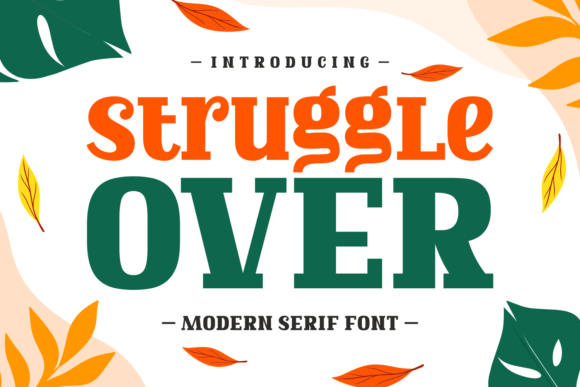
Journey through the realm of typography with the Struggle Over font, where heritage and modernity harmoniously coexist. Crafted by the skilled hands of Ade (7NTypes), this captivating serif font unveils a symphony of visual elegance and versatility.
Unleash your creative vision with Struggle Over, a font carefully designed to enhance the visual allure of your online store. With its timeless appeal and innate sophistication, Struggle Over transforms your website into a captivating destination that exudes professionalism and trust. Witness the remarkable transformation as your products bask in the spotlight, drawing customers in with an irresistible charm.
Beyond its undeniable aesthetic prowess, Struggle Over possesses a remarkable ability to communicate with clarity and impact. Its meticulously crafted serifs and clean lines dance together, guiding the reader's eye effortlessly through your carefully crafted content. Each letterform is a testament to precision, conveying your messages with unwavering clarity, ensuring that your customers grasp every detail effortlessly.
Open the doors to a world of creative possibilities with Struggle Over. Let your imagination run wild as you craft captivating headlines that command attention, compelling product descriptions that ignite desire, and informative blog posts that captivate and enlighten. With Struggle Over as your typographic muse, your online store transcends the ordinary, becoming a haven of visual delight and persuasive communication.
Embrace the allure of Struggle Over and embark on a journey of typographic excellence. Allow this contemporary serif font to redefine your online presence, captivating customers, and driving conversions with its timeless grace and unwavering clarity. Let Struggle Over be the cornerstone of your successful e-commerce venture, propelling your brand to new heights of success.